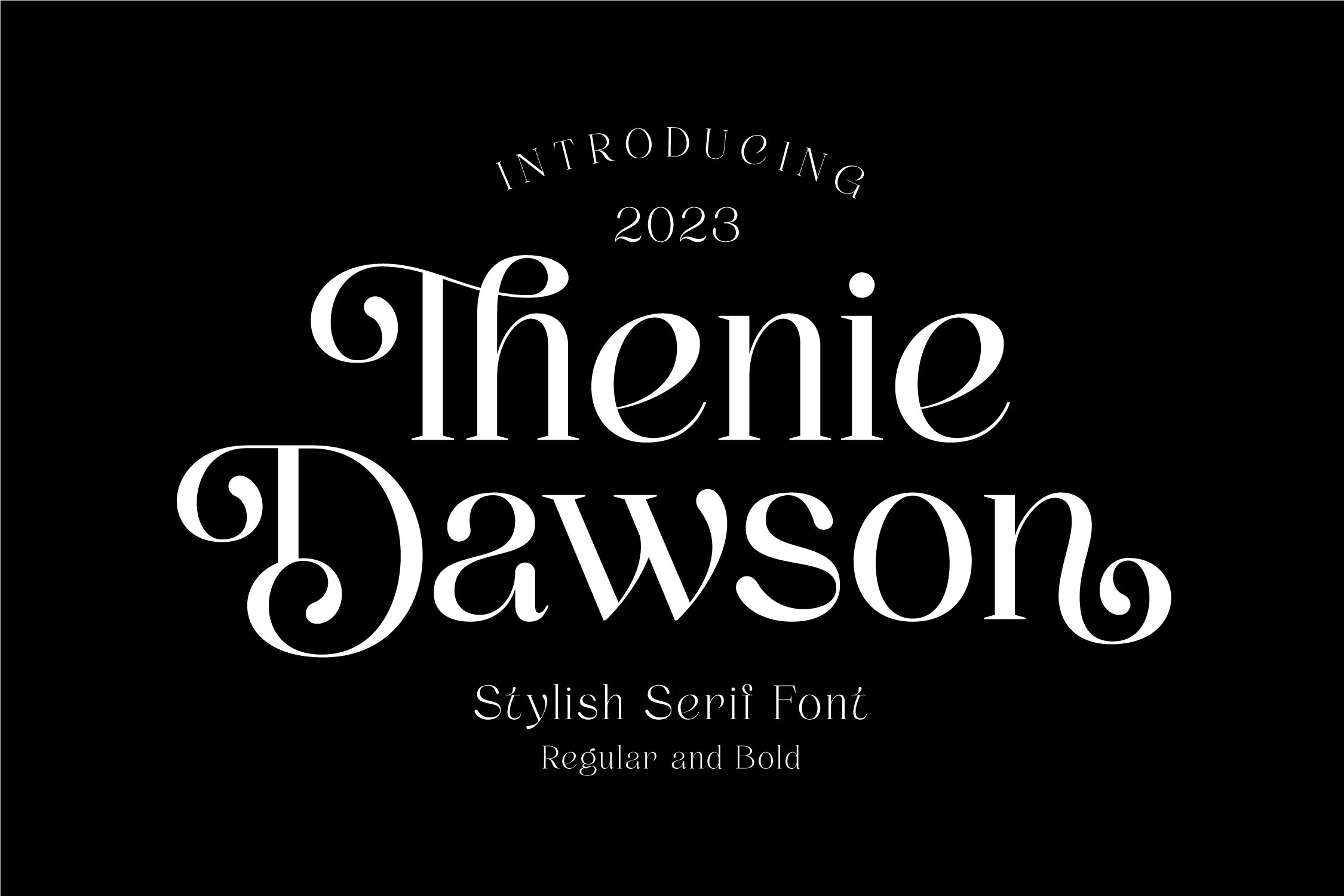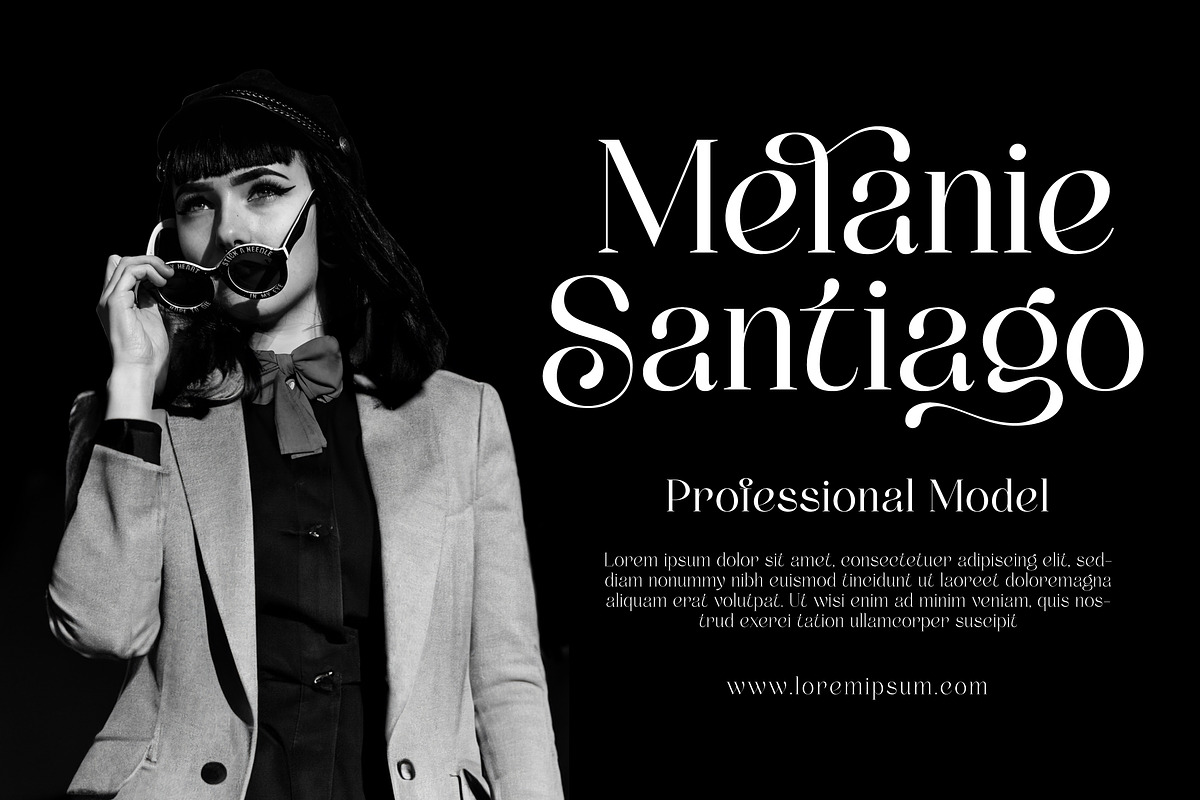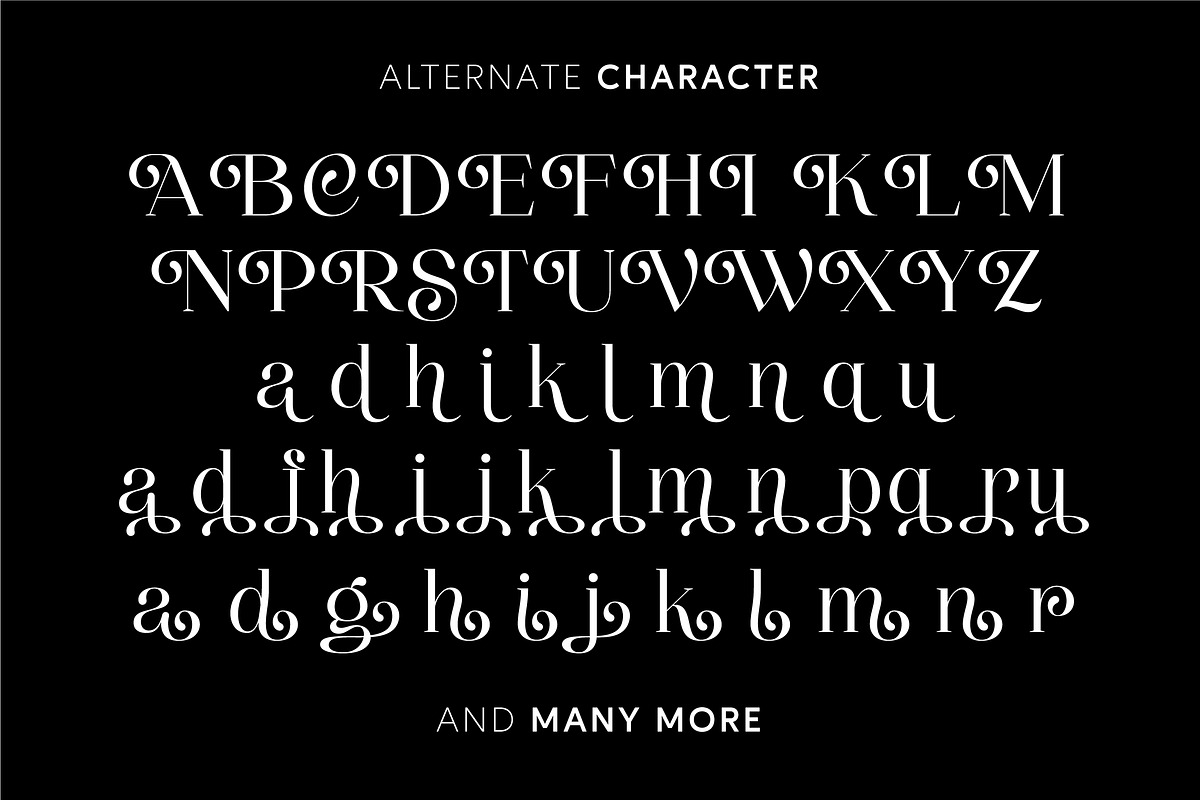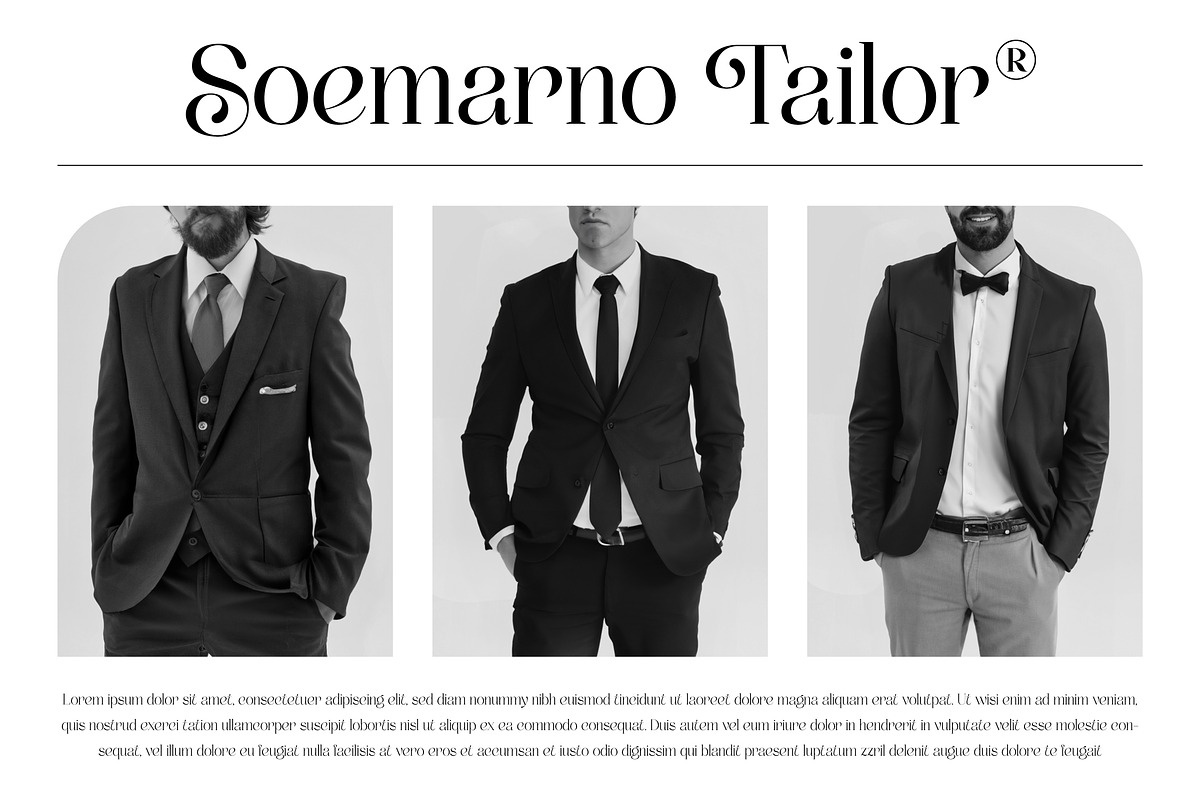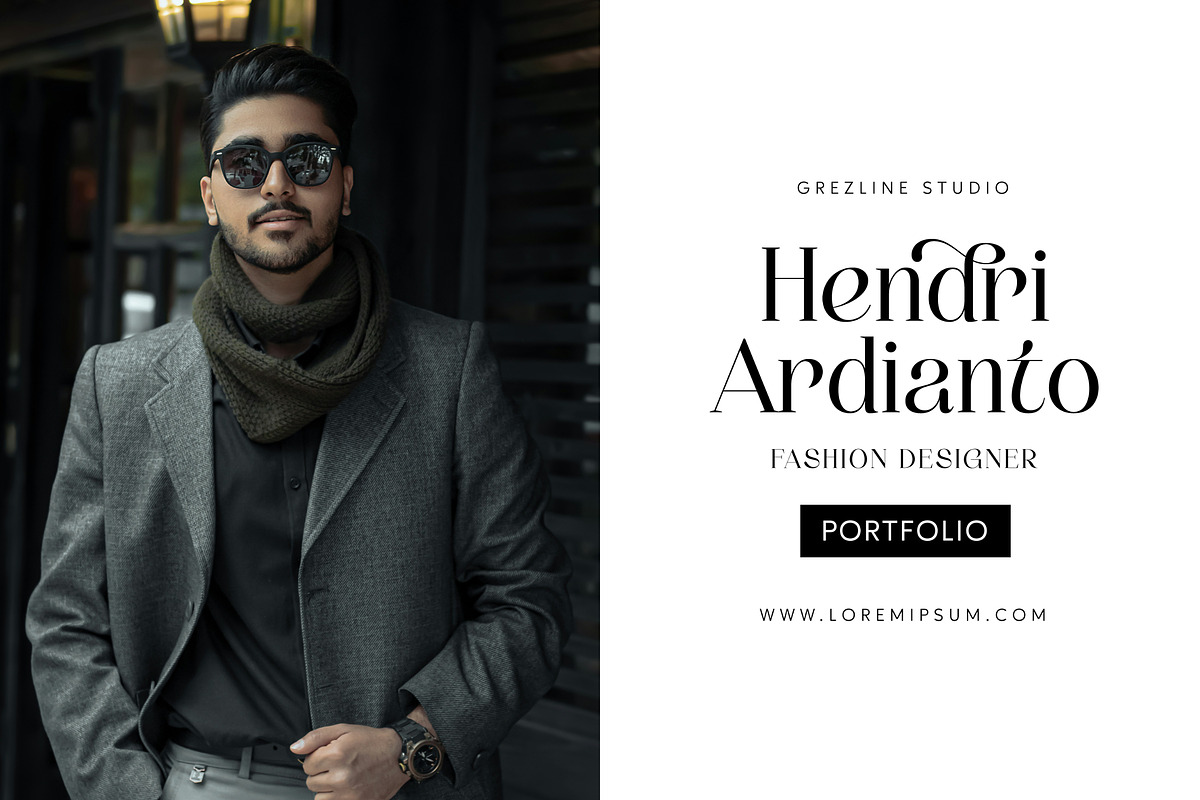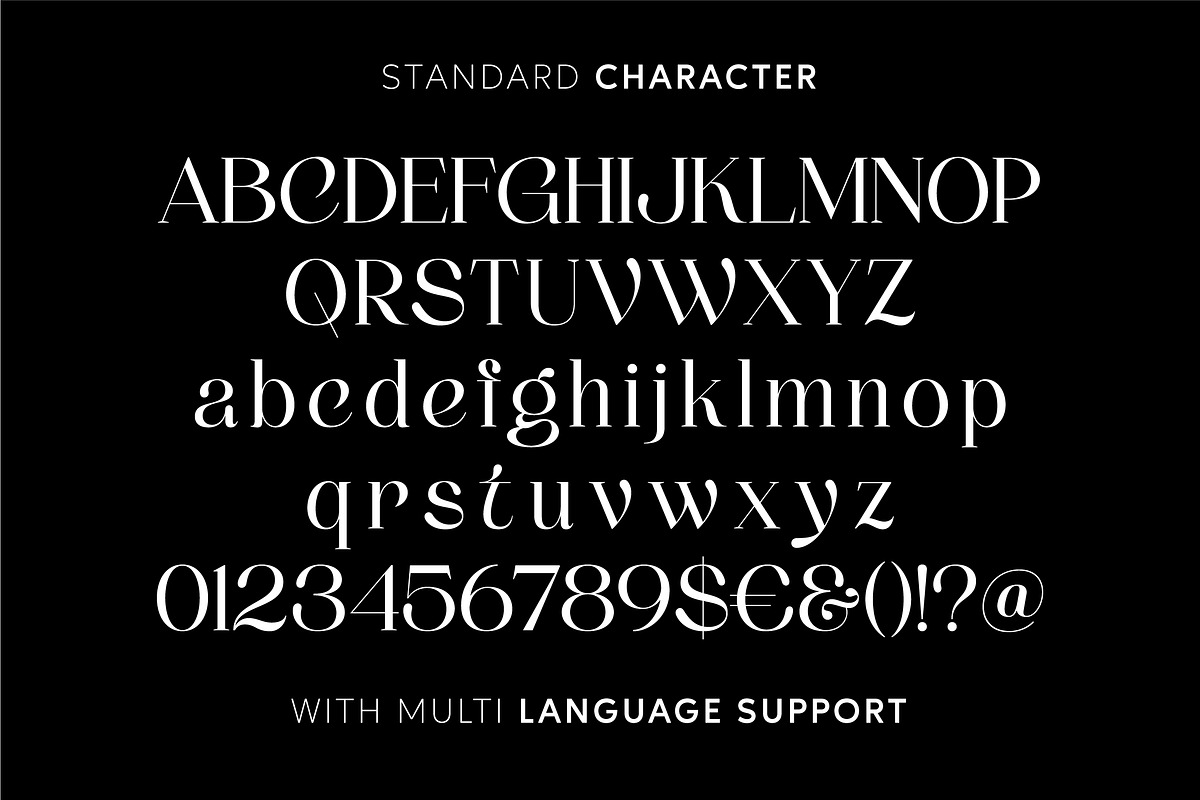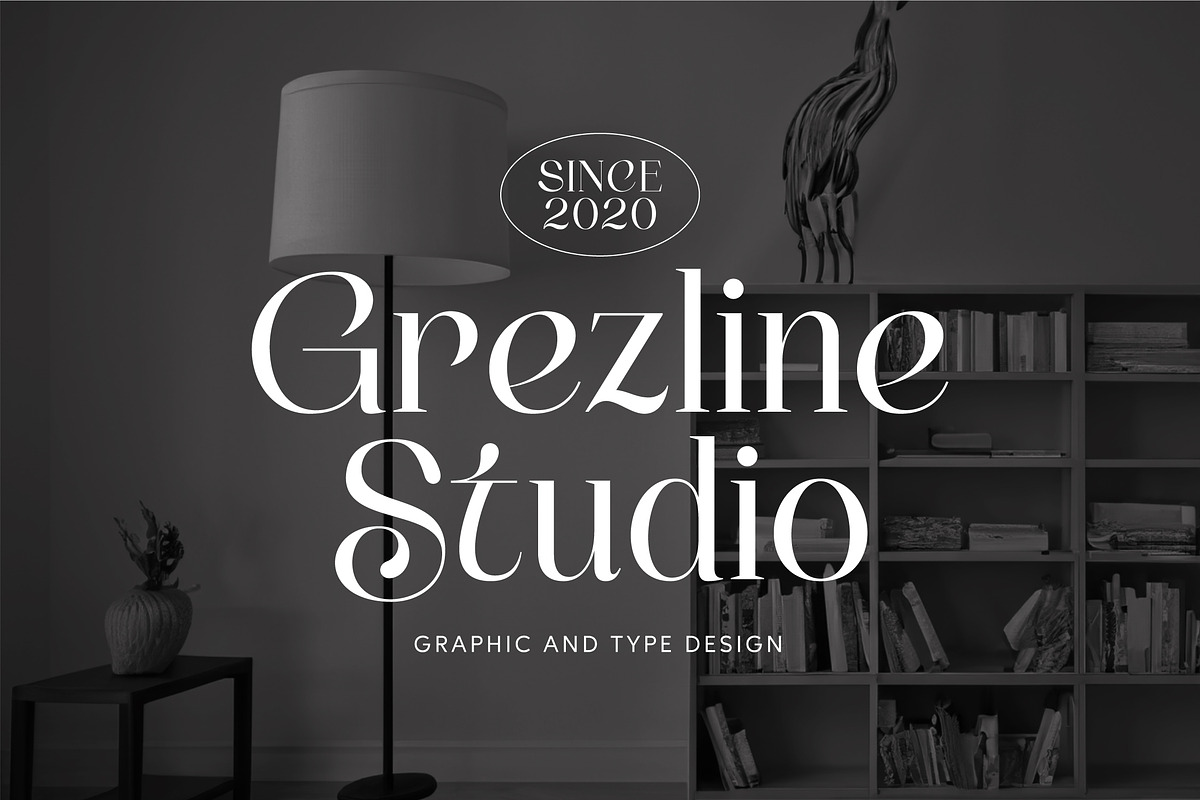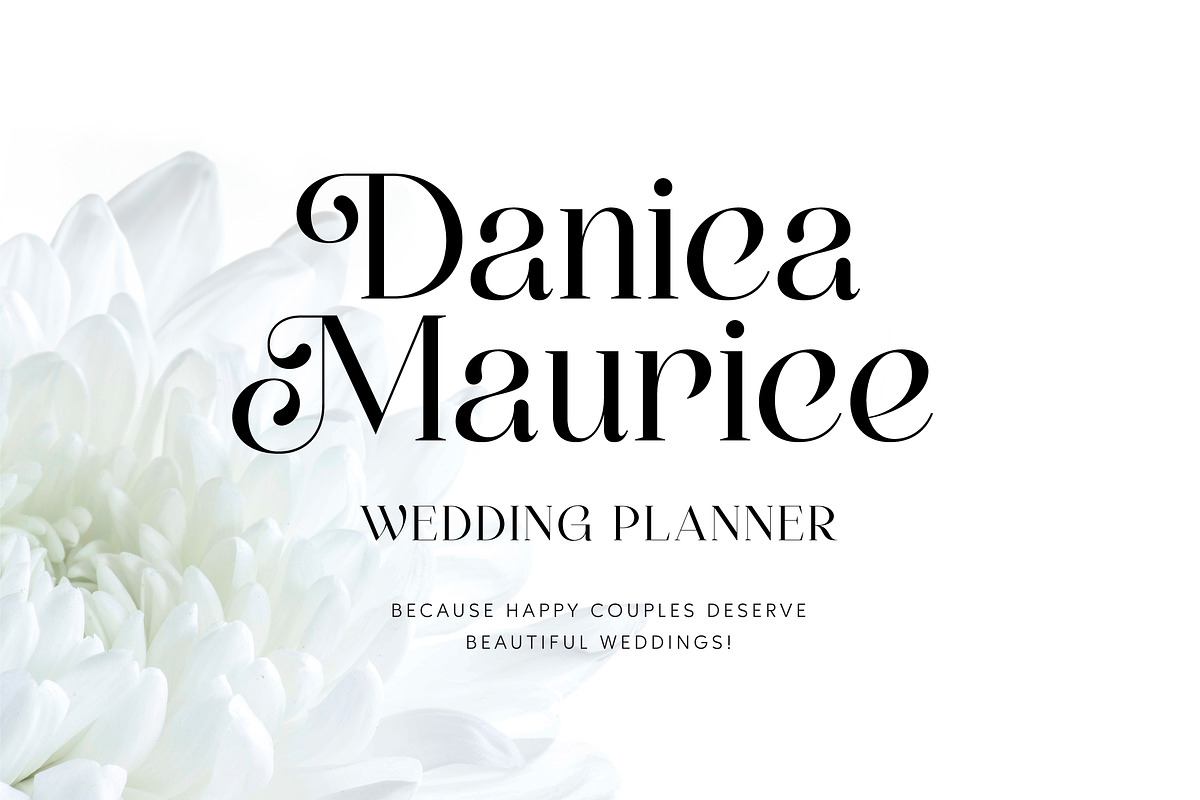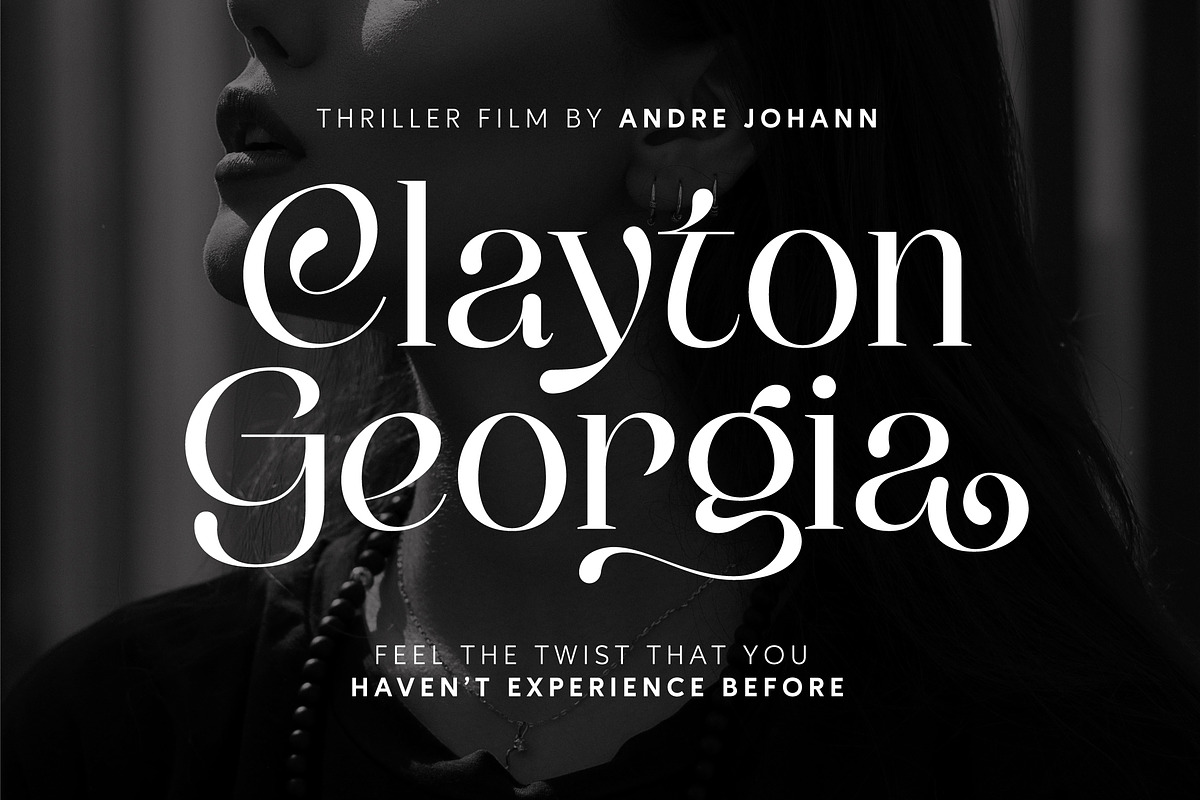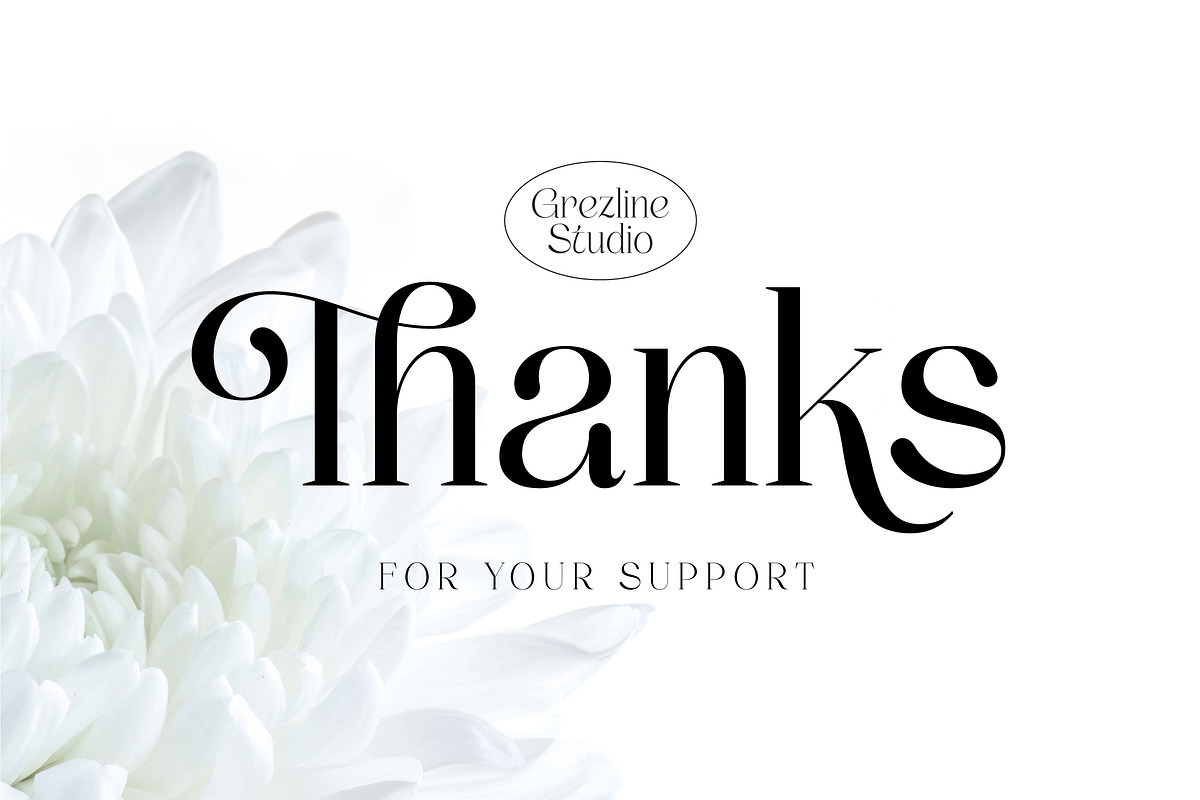
Thenie Dawson - Stylish Serif Font
Thenie Dawson is a stylish serif font with classy and timeless charm. This font was designed to enhance the beauty of your projects. Very suitable for headlines, titles, advertising, vintage mood board, branding, logotypes, packaging, editorial design, blog/websites, social media quotes, wedding branding, vintage designs and much more. Add this font to your collection and let its beauty tell your story.
Alternates and Ligatures
Multilingual Language